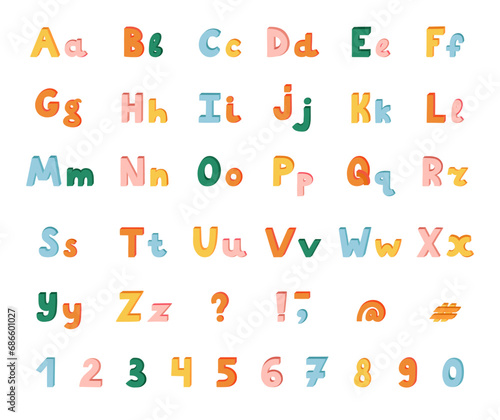
Cute funky 3d alphabet set. Bold font with shadow. Funny latin ABC with uppercase, lowercase letters, punctuation marks and numbers for poster, logo, headline, book cover, printed quotes